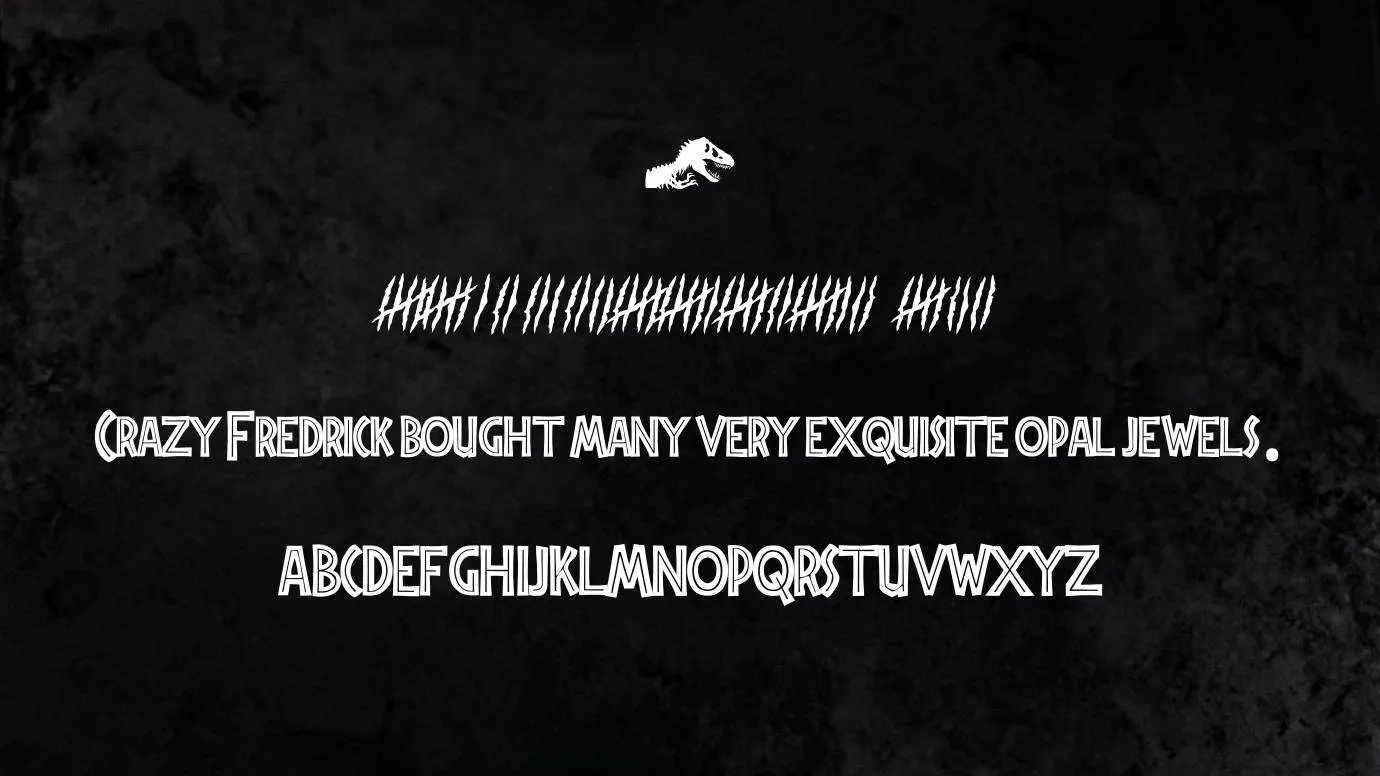
Introducing a mysterious display typeface that has a particular texture known as Jurassic Park font. The font’s characters have an amazing texture like it has a blank line on the internal side while the external area is totally bold.
The typeface style is great for heading and titling purposes as well as logo designs. The typeface style belongs to the display family and also has a vintage look.
The name of the Jurassic Park Font is basically derived from the famous logo of the movie called Jurassic park which was first released in 1997. However, the typeface is great for our adobe projects like adobe photoshop, InDesign, and illustrator likewise.
View of Jurassic Park Font
This vintage style typeface can fulfill your poster’s needs and make your designs astonishing, Jurassic Park Font is good enough for your logo designs and also advantageous for your printing-based designs.
| Name | Jurassic Park Font |
| Designer | Film Himmel Jens R, Ziehn |
Is Jurassic Park a display Font?
The Jurassic Park belongs to the display family and also has a vintage look, this vintage style typeface can fulfill your poster’s needs and make your designs astonishing.